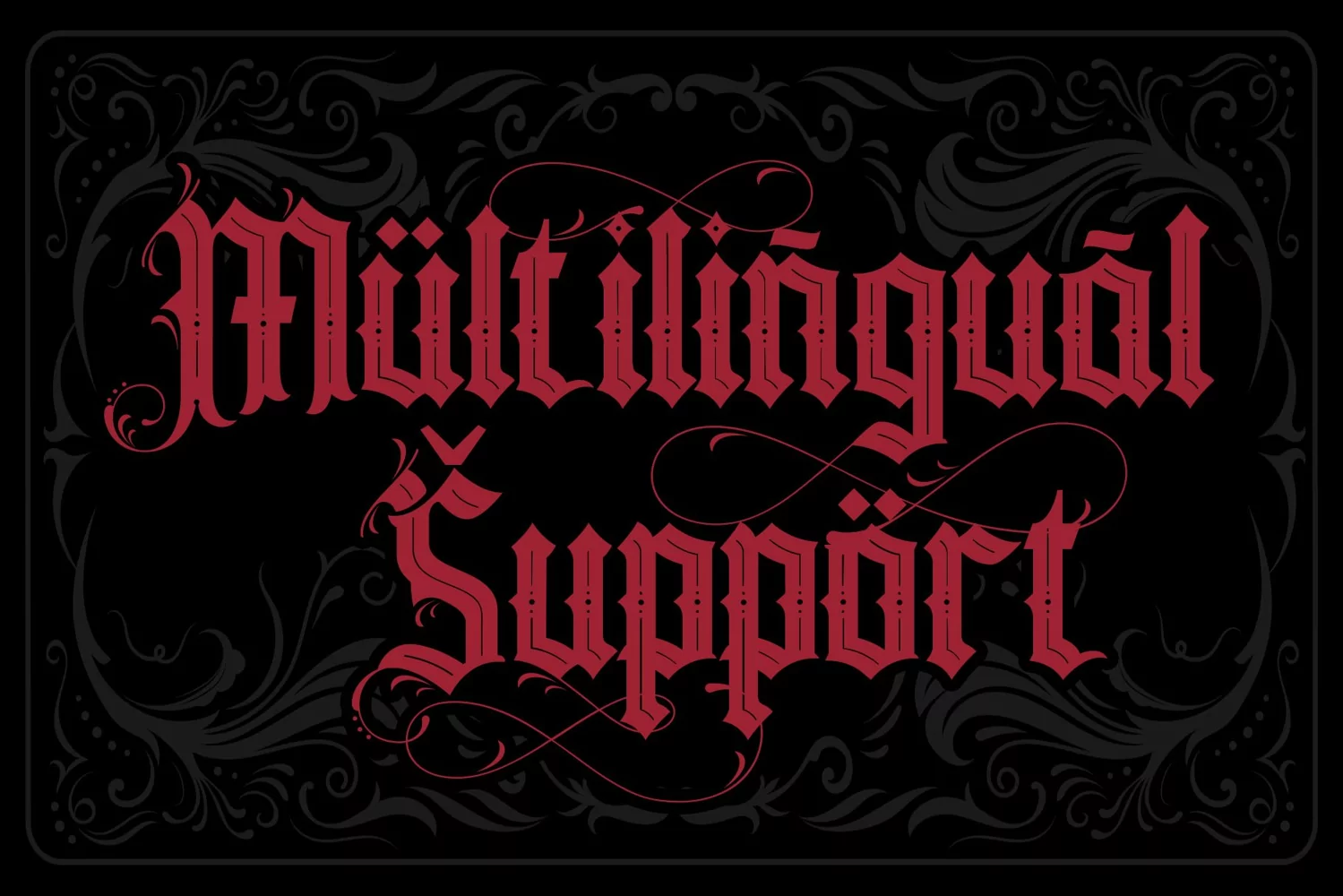
Bucked Talk
Bucked Talk Font
This pair was inspired by the vintage design that i saw on my friend's garage. It was crafted by hand specially to add natural handmade feeling in its brand identity than i make it clean with pentool.
Bucked Talk font has 209 character set included stylistic alternate and ligature
Bucked Talk Font is very good looking in logo with vintage style, labels, t-shirt prints, product packaging, invitations, advertising and others.
If you looking for Vintage Blackletter Font, Bucked Talk is a great choice for you to use it on your vintage design or even logotype. This font is full hand drawing decorative.